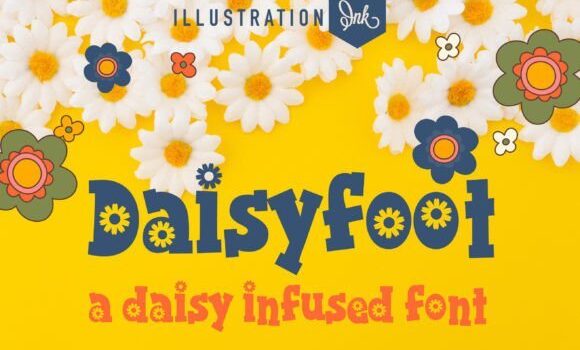
daisyfoot
Daisyfoot Font – Free Download Introduction to Daisyfoot Font Daisyfoot is a bold serif display font that sports daisy silhouettes throughout. 📸 Preview Gallery 6 images 📌 Product Name Daisyfoot Font 👤 Author Illustration Ink 📂 Category Explore ⬇️ Download